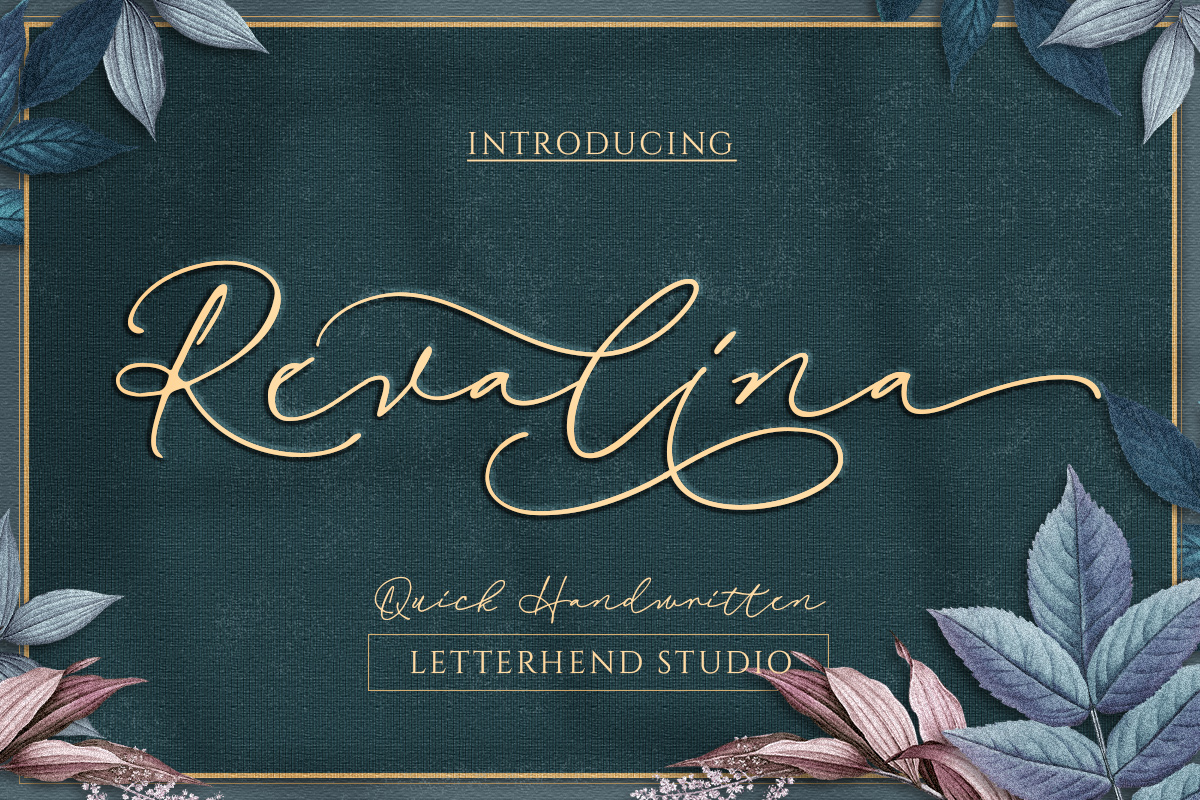
Revalina Font
Revalina Font is perfect for elegant fashion magazine layouts, sophisticated beauty brand packaging, luxury jewelry advertising, upscale cosmetic product labels, high-end bridal boutique signage, premium lifestyle blog headers, refined restaurant branding, exclusive spa and wellness materials, delicate perfume packaging, and graceful social media graphics. This exquisite typeface brings timeless sophistication to haute couture collections, luxury hospitality branding, premium skincare lines, elegant event planning services, and distinguished cultural institution materials.
Revalina Font is exciting because it embodies refined femininity and sophisticated elegance through its gracefully proportioned letterforms. The font features delicately balanced characters with subtle curves and elegant details that evoke the finest traditions of luxury typography and premium brand communications. Its distinctive design philosophy incorporates gentle refinements and harmonious spacing that create an atmosphere of exclusivity and timeless beauty. The font's sophisticated charm and feminine elegance make it perfect for brands seeking to communicate luxury, refinement, and sophisticated taste in their visual storytelling.
The Revalina Font family includes various elegant styles: Thin, Light, Regular, Medium, Bold, Italic, Script, Condensed, Extended, Display, Ornate, and Decorative variants. Each family member maintains the core sophisticated DNA while offering different levels of elegance for diverse luxury design applications. The comprehensive font collection ensures consistent premium branding across high-end product lines, luxury service offerings, and sophisticated marketing campaigns.
Whether you're developing luxury fashion branding, designing premium beauty campaigns, creating sophisticated website headers, or crafting exclusive marketing materials, Revalina Font delivers outstanding feminine appeal and luxury sophistication. The font's distinctive elegant personality excels in luxury logos, premium packaging design, sophisticated editorial layouts, and high-end applications where refined femininity and luxury elegance are essential.